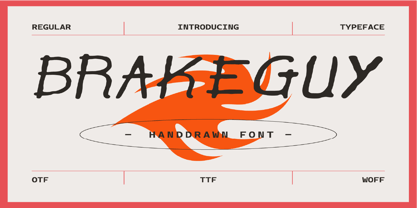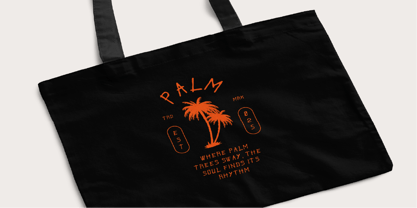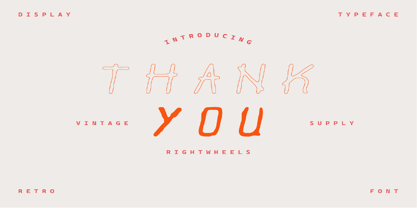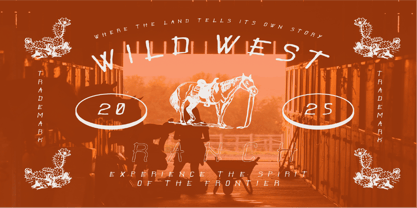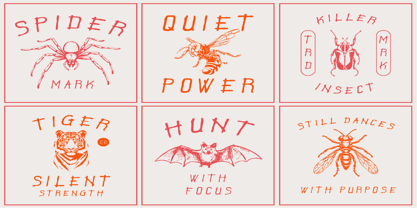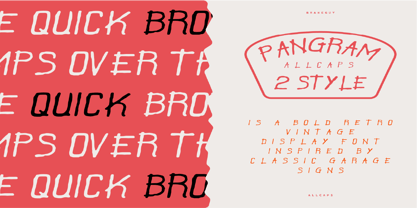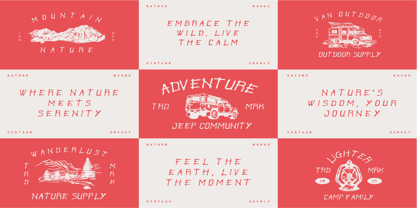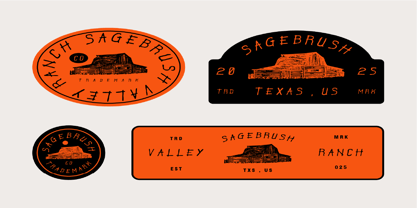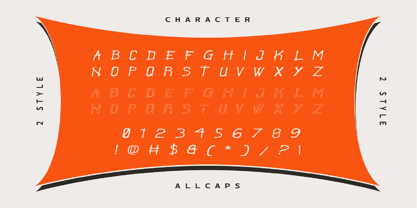
Brakeguy
La famille de polices Brakeguy a été conçue par et publiée par Rightwheels. Brakeguy contient 1 styles. En savoir plus sur cette famille
Brakeguy is a hand-drawn font characterized by its unique, organic style, offering a personal and expressive touch to any design. Its irregular strokes and playful curves make it ideal for projects requiring a casual, artistic vibe. The font brings a sense of individuality and creativity, perfect for designs that want to stand out with a handcrafted feel. Brakeguy is a hand-drawn font that captures the essence of raw creativity and personal expression. Its uneven lines and dynamic structure give it a lively, organic appearance, making it ideal for projects that aim for an informal, artistic style. The font’s playful and distinctive design adds character and charm, making it suitable for a wide range of creative applications, from logos to posters, where a bold, unique aesthetic is desired.